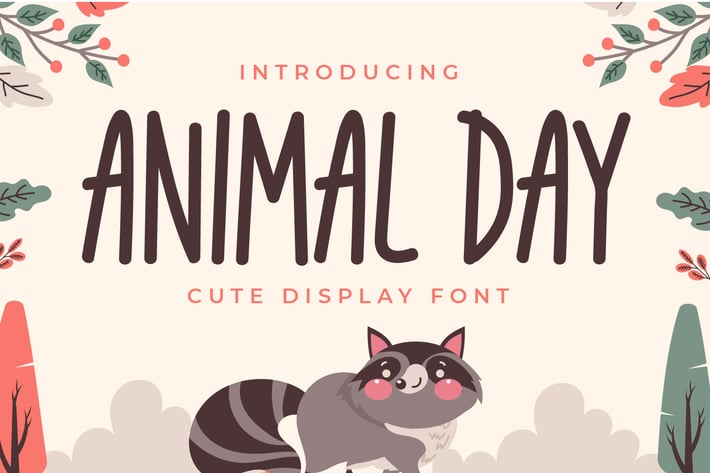
Animal Day - Cute Display Font
Introducing Animal Day - Cute Display Font
Animal Day is a fun and cute display font that fits perfectly into anything. Its casual charm makes it look very down-to-earth, easy to read, and, in the end, very versatile. Use this beautiful display font for your every creative idea.
This font is perfect for quotes, shirt designs, websites, branding, children’s designs, blogs, logos, invitations, and more!